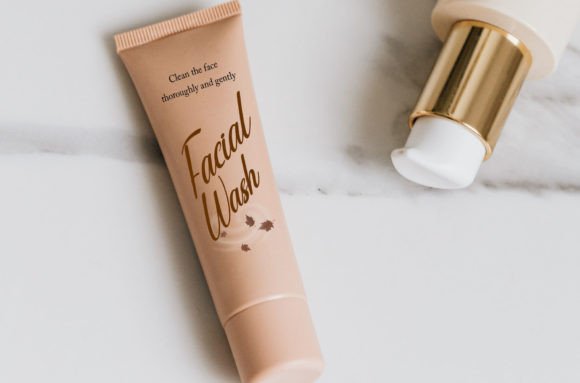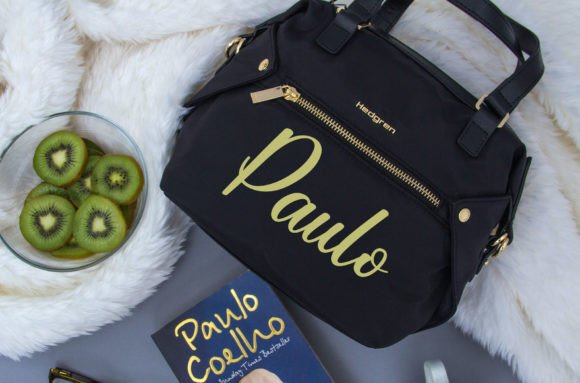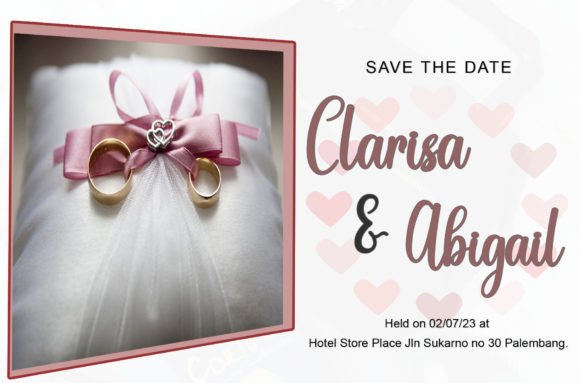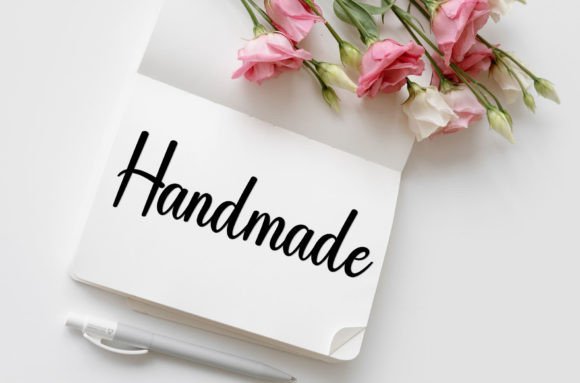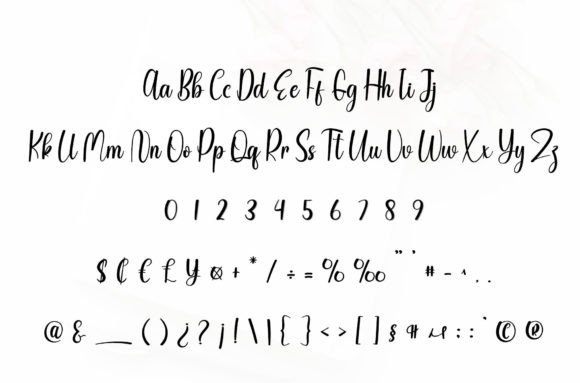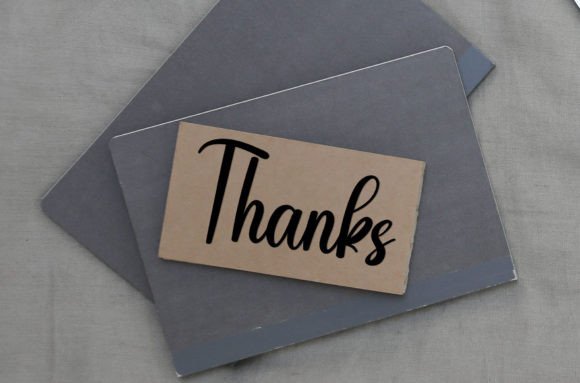
Introduction to Laguage Font
Have you ever found yourself staring at a blank page, desperately searching for the perfect font to bring your creative project to life? For designers, this moment of inspiration is a crucial one – it can make or break the entire aesthetic of a design. And if you’re anything like us, you’re always on the lookout for that special something that will elevate your work and leave a lasting impression.
Enter Laguage Font, a stunning handwritten font that’s sure to capture your heart. With its elegant touch and timeless style, this font is the perfect addition to any design resource. Whether you’re working on a project with a transparent background or a high-quality print piece, Laguage Font is sure to deliver.
Key Features of Laguage Font
- High-quality font design suitable for various creative projects, including graphic design, digital art, and publishing.
- Unique, handcrafted design elements and ornaments to add a touch of personality to any project.
- Perfect for use in digital and print media, including logos, business cards, brochures, and more.
Honest Review: Laguage Font
As a designer, I’m always on the lookout for high-quality design resources to elevate my creative projects. Recently, I stumbled upon Laguage Font, and I’m excited to share my honest review with you.
- ✨ Laguage Font offers a unique, modern aesthetic that’s perfect for a variety of design projects.
- ✨ The transparent background option provides endless possibilities for creative experimentation.
- ⚠️ The font selection is limited, which may not be suitable for designers working on complex projects that require multiple font styles.
- ⚠️ Some users may find the font’s modern style too trendy, which could limit its versatility in certain design contexts.
Overall, I’m impressed with Laguage Font’s high quality and versatility. While it may not be the best choice for every design project, it’s an excellent resource for designers looking for a modern, free font with a transparent background.
How to Use Laguage Font
Transparent Background
For the best results, use Laguage Font in combination with other high-quality design resources. Experiment with different font sizes, colors, and arrangements to achieve the desired look.